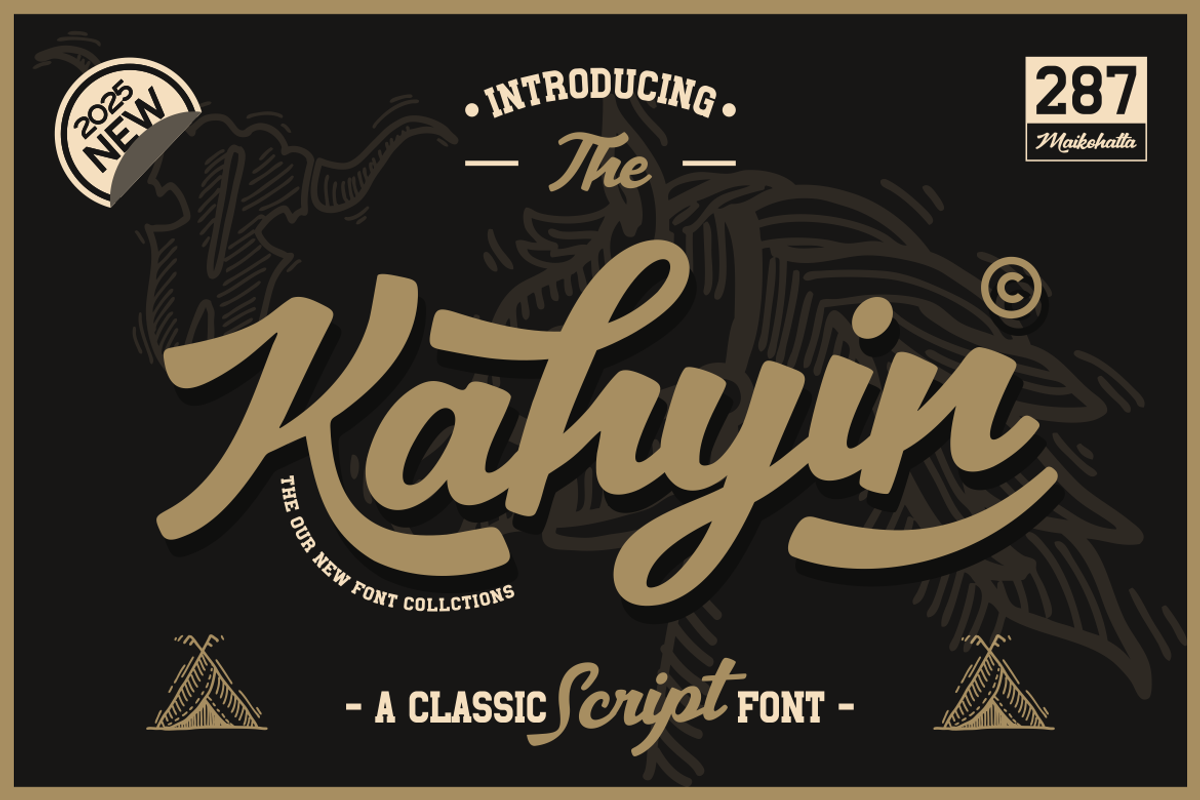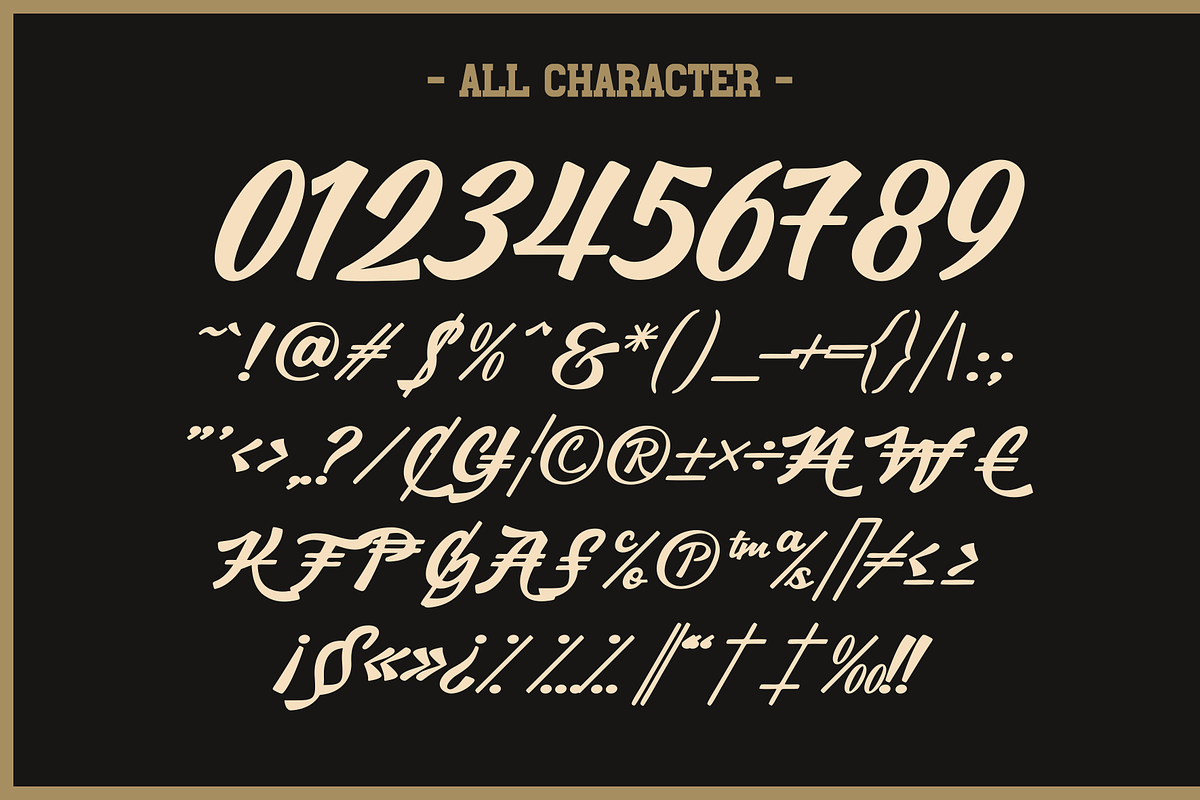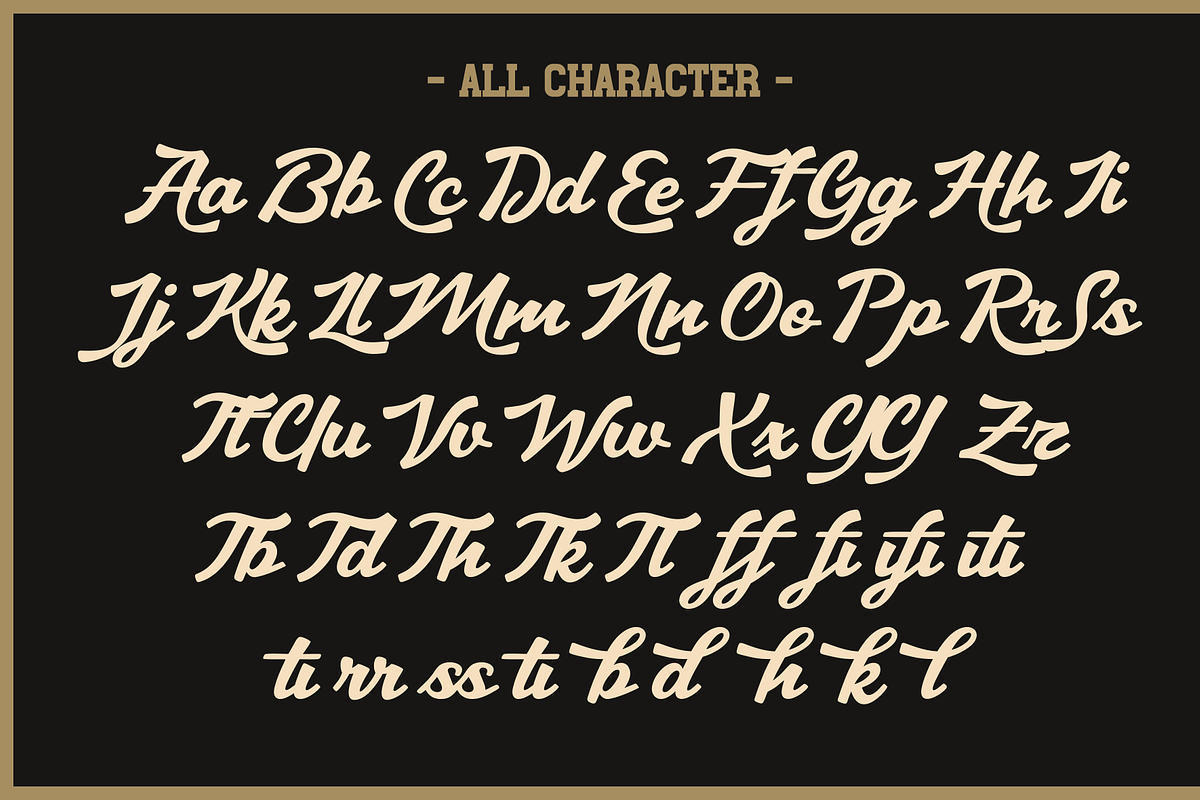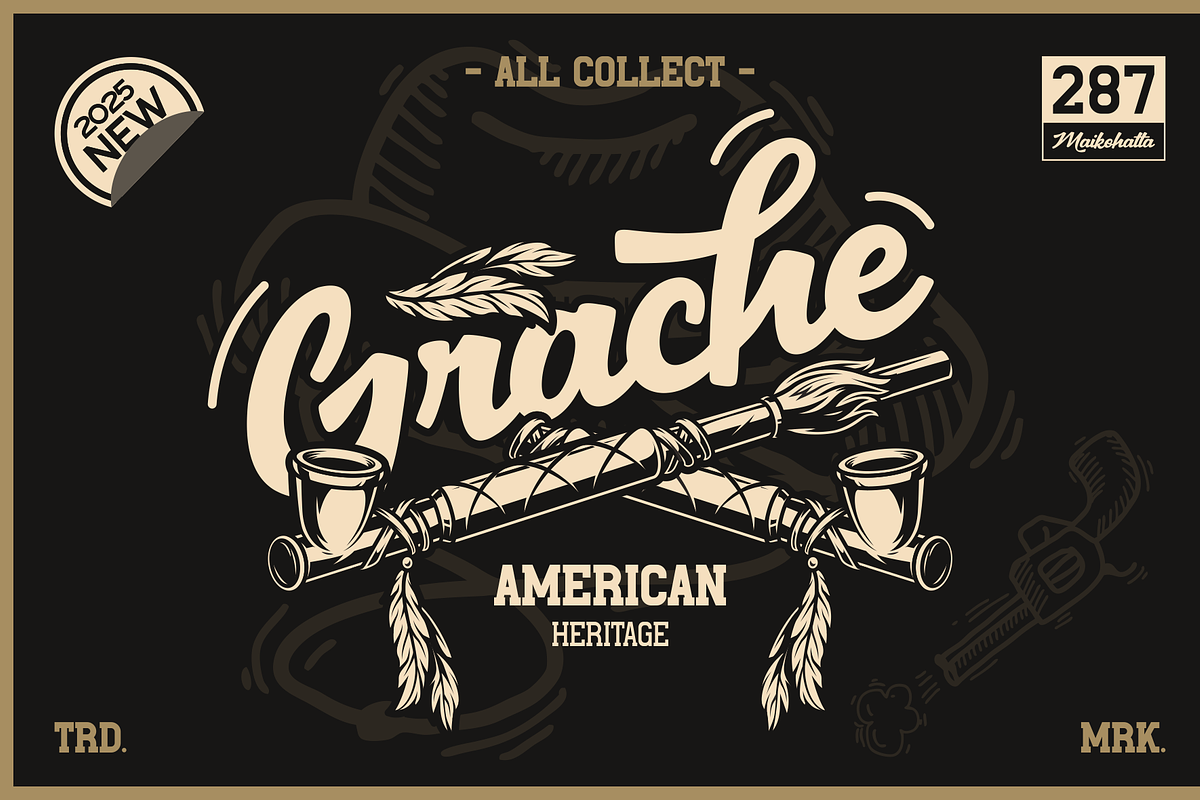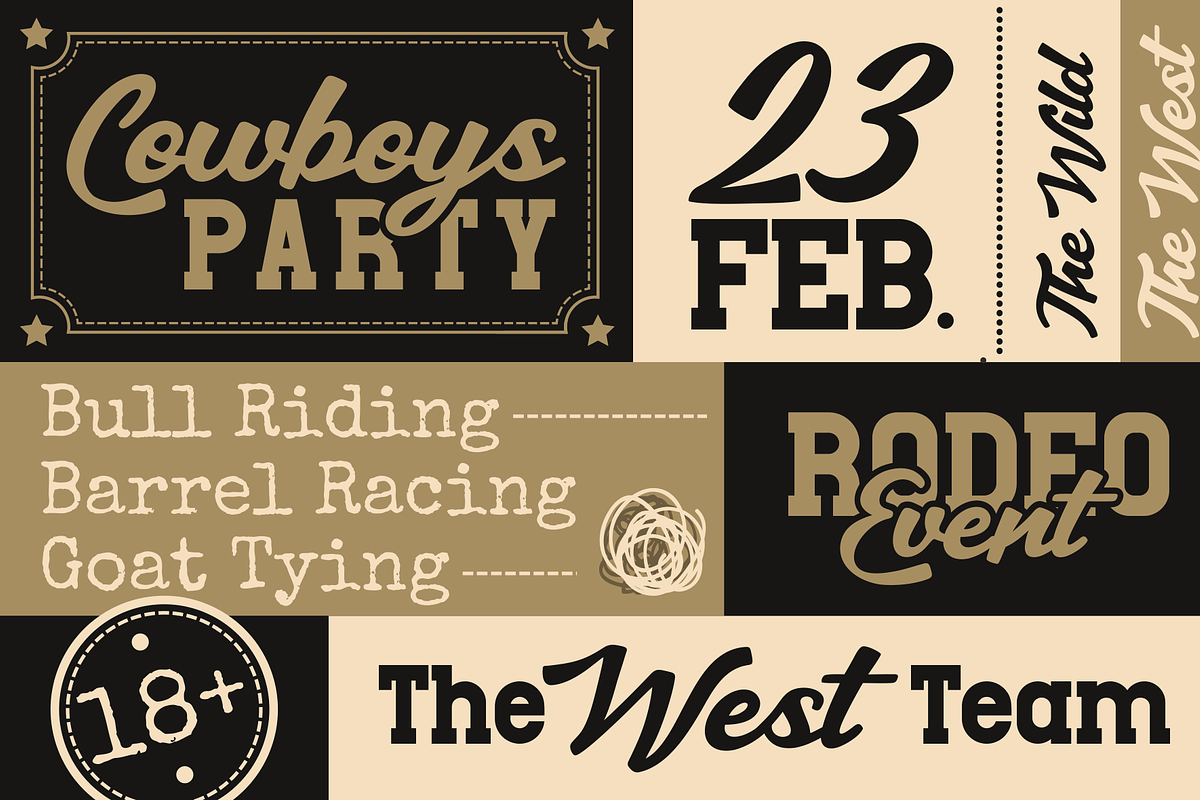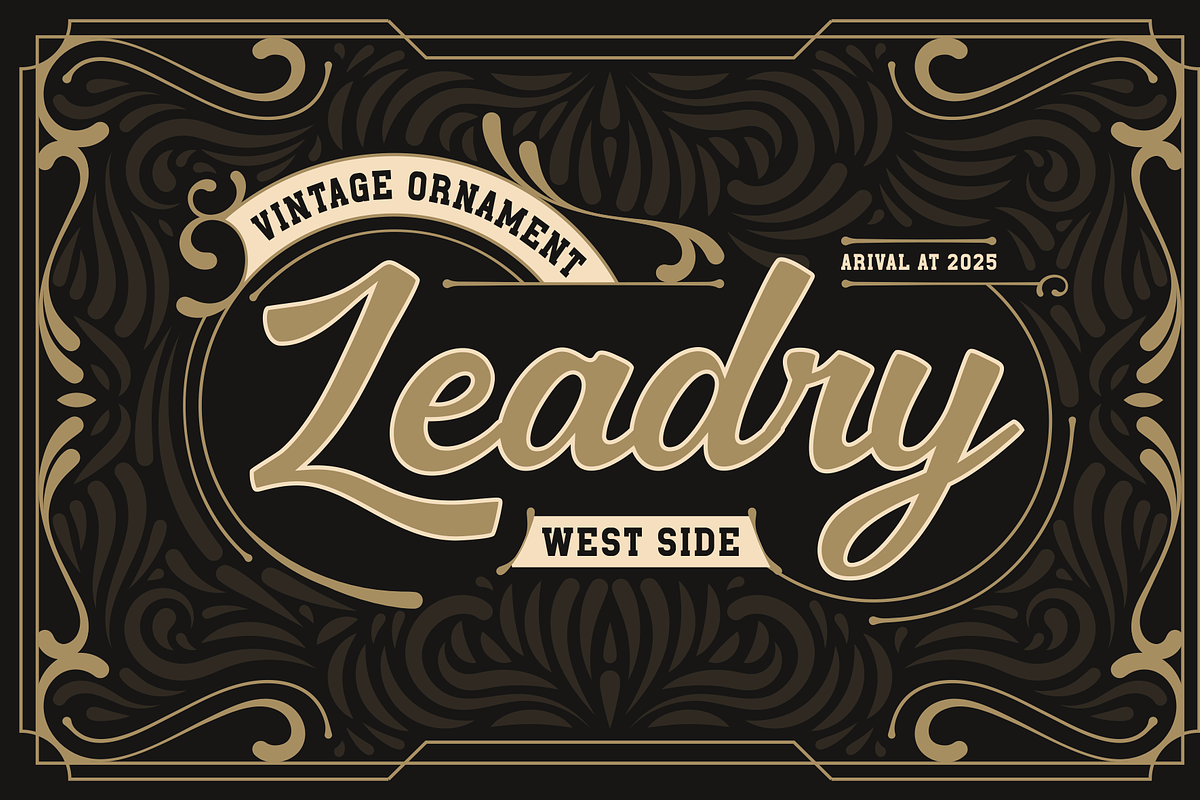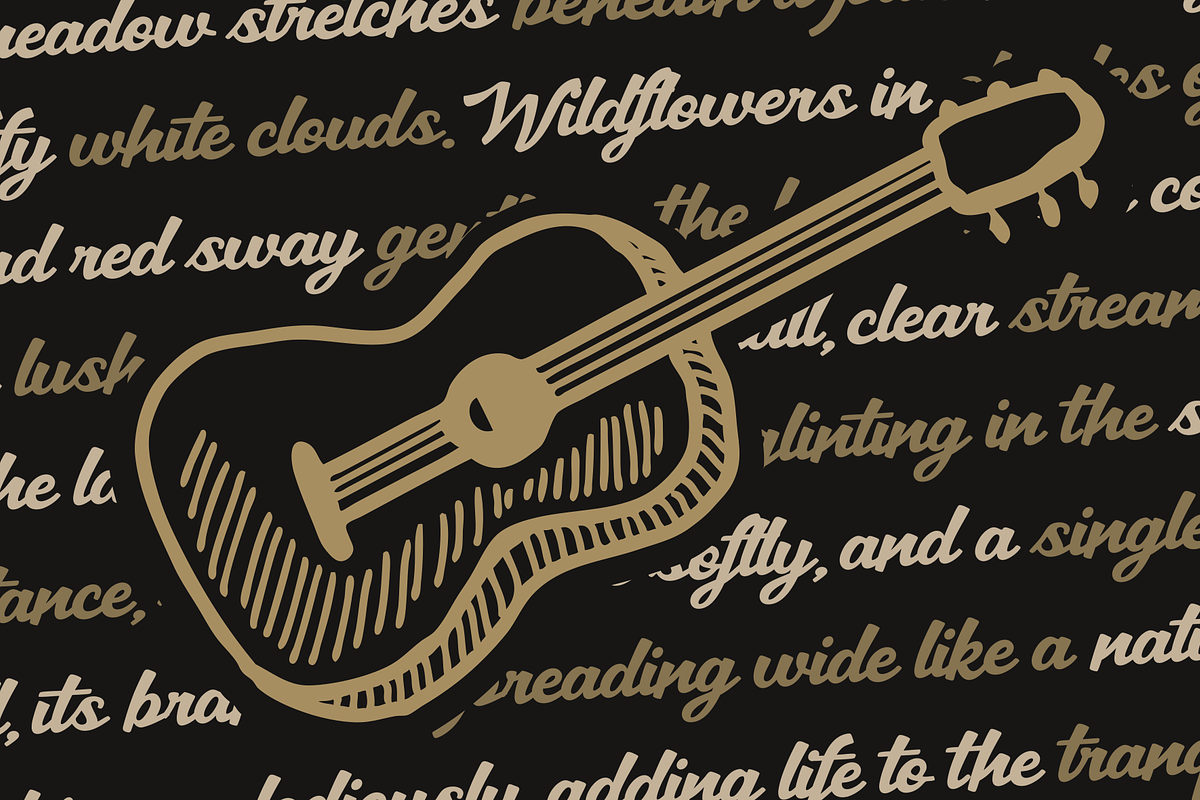
Kahyin - Classic Script Font
Introducing our new product Kahyin - Classic Script Font
Kahyin - is a very flexible choice and can be used in a variety of design contexts. Its ability to provide a clean, professional, contemporary look and its simplicity and visual appeal make this font good for use in the world of graphic design and modern typography.